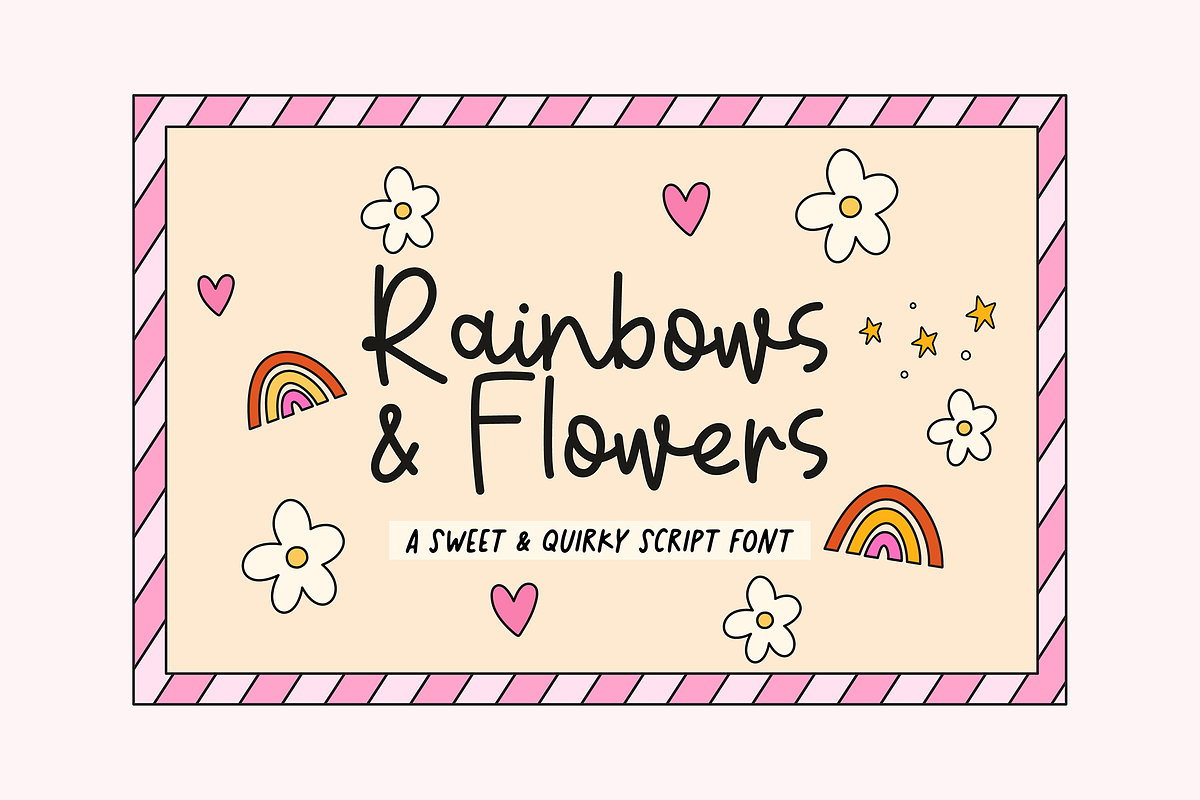
Rainbows and Flowers Font Free Download is a cheerful, whimsical typeface designed to bring joy and sweetness to any creative project. With its rounded letterforms, playful curves, and childlike charm, this font is perfect for kids' branding, birthday invitations, greeting cards, product packaging, posters, and anything that needs a fun and friendly touch.
Full of personality and positivity, Rainbows and Flowers Font Free Download is crafted to evoke feelings of happiness and imagination. It pairs beautifully with bright color palettes, hand-drawn illustrations, and bubbly graphics, making it ideal for educational materials, children’s books, and DIY crafts.
Whether you're designing for a toy brand, a baby shower, or a cute online shop, this font adds a soft and lovable energy to every letter. It’s highly readable while still keeping a joyful, decorative look.